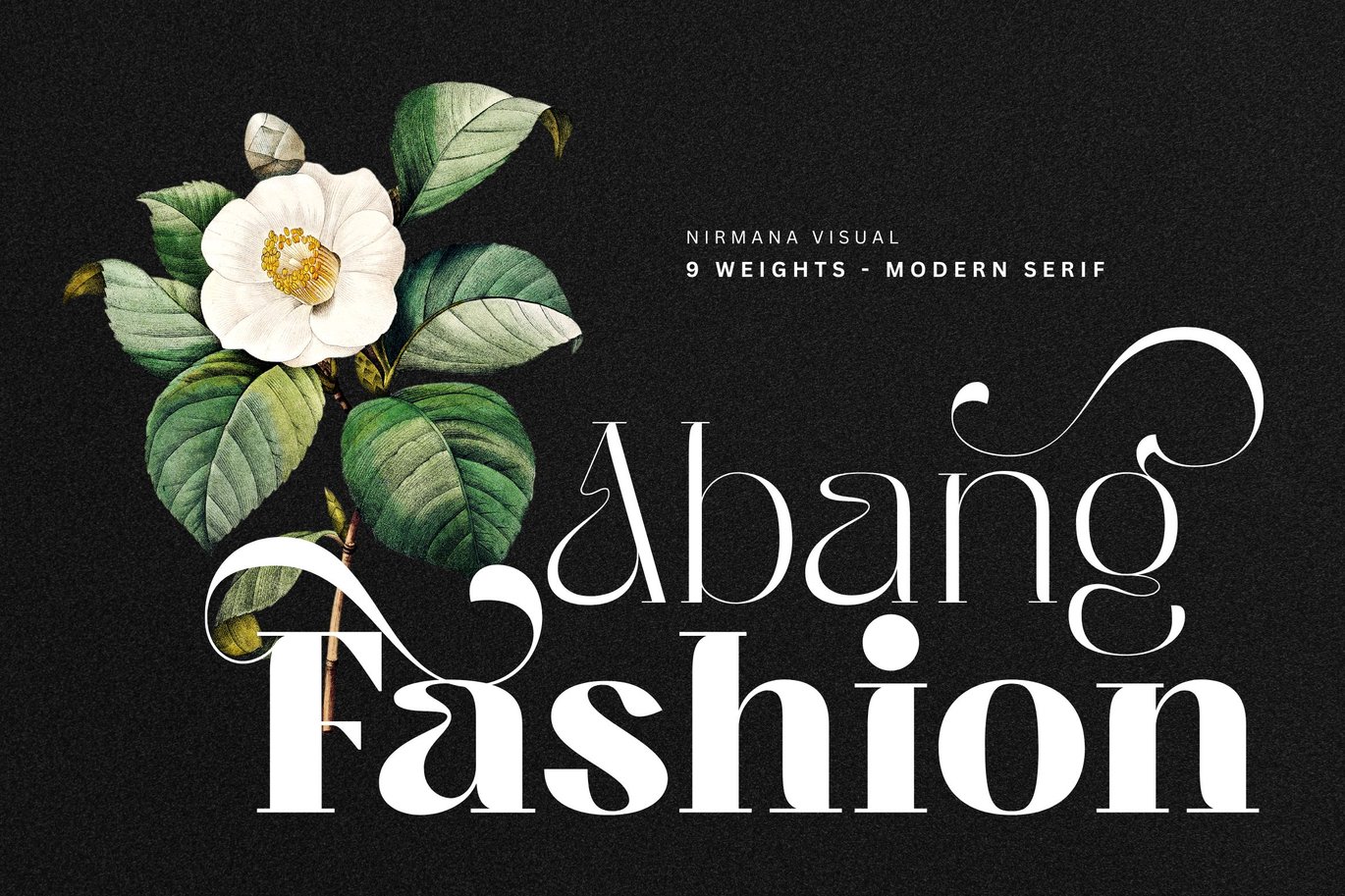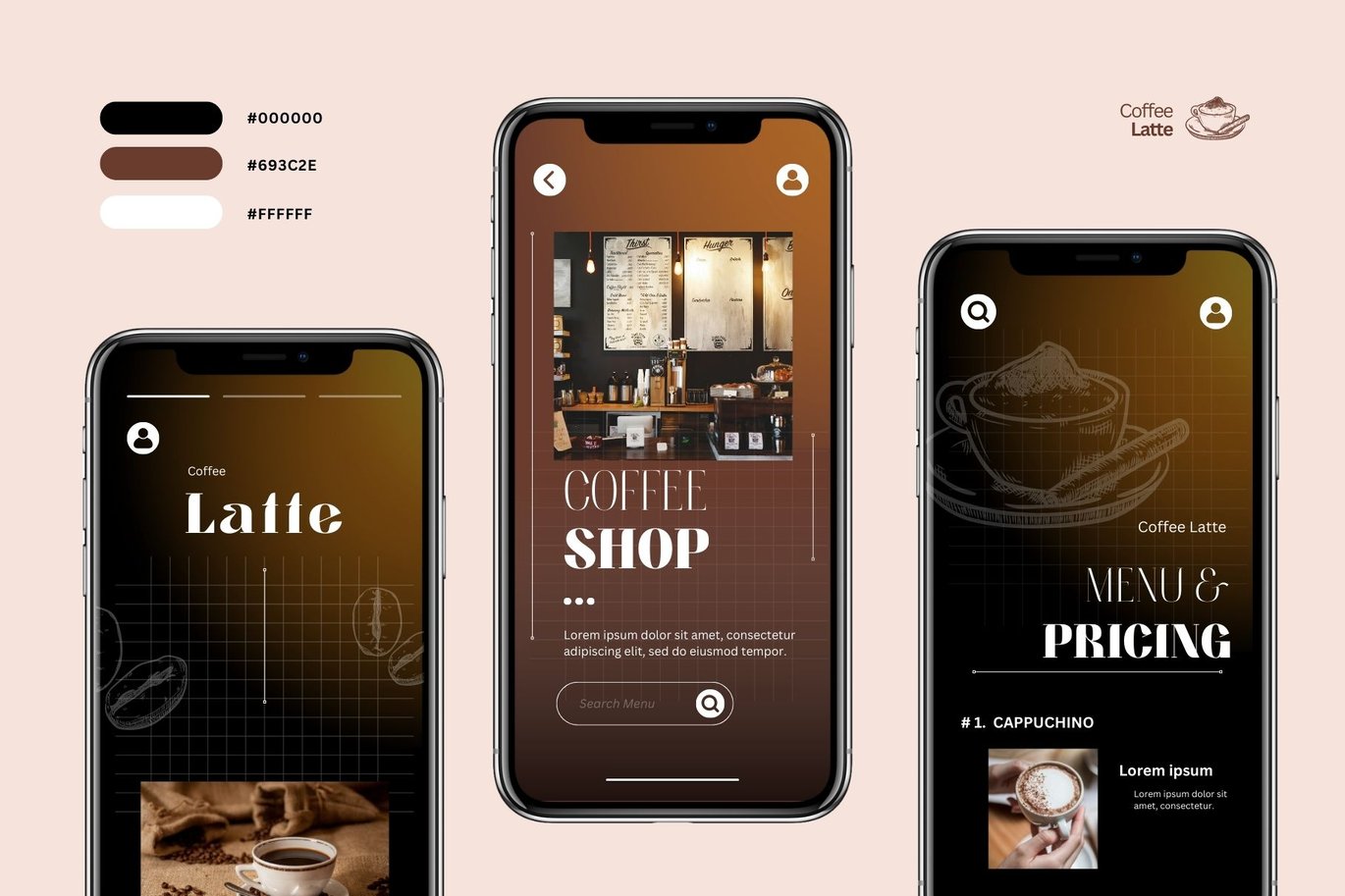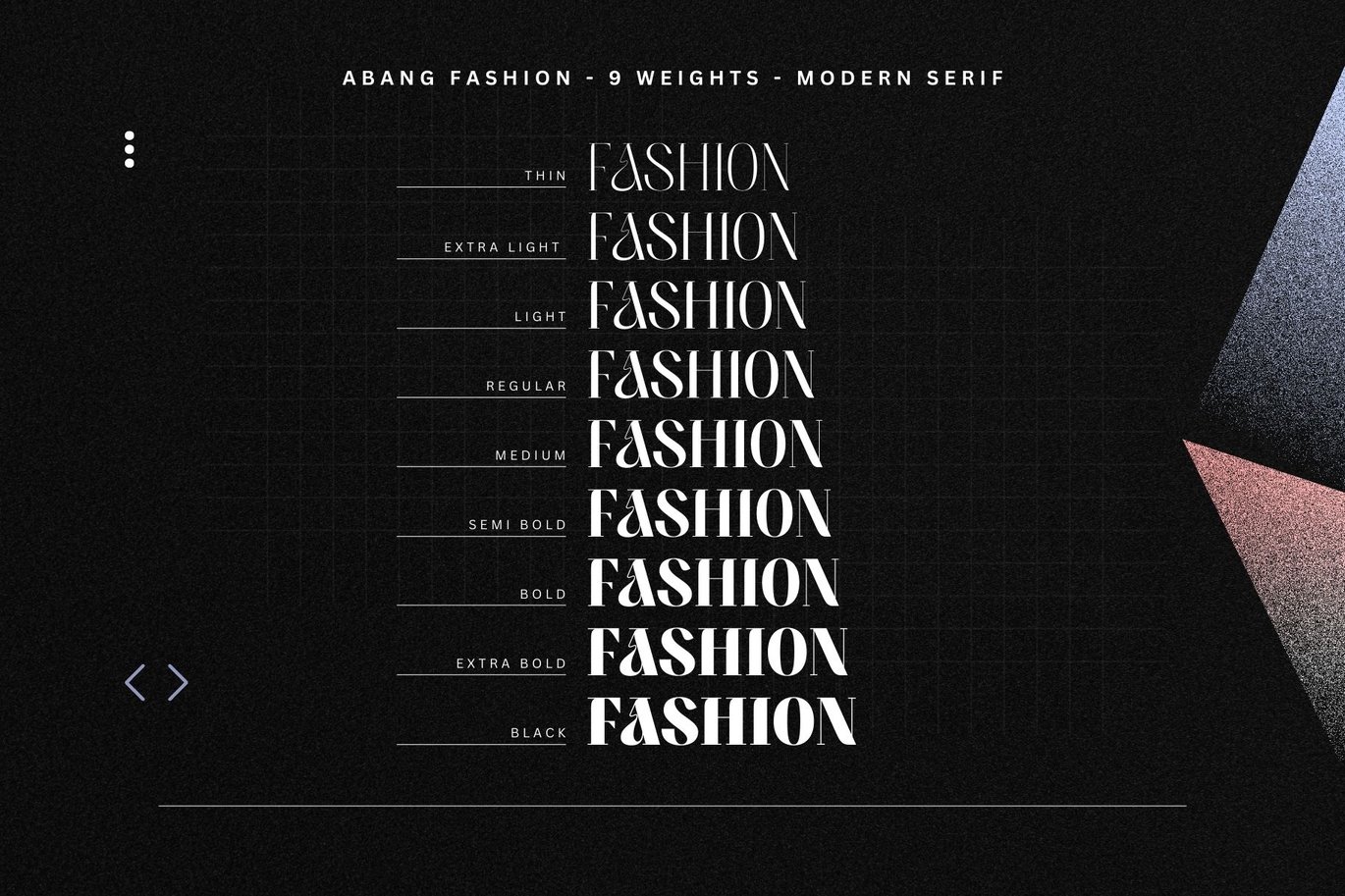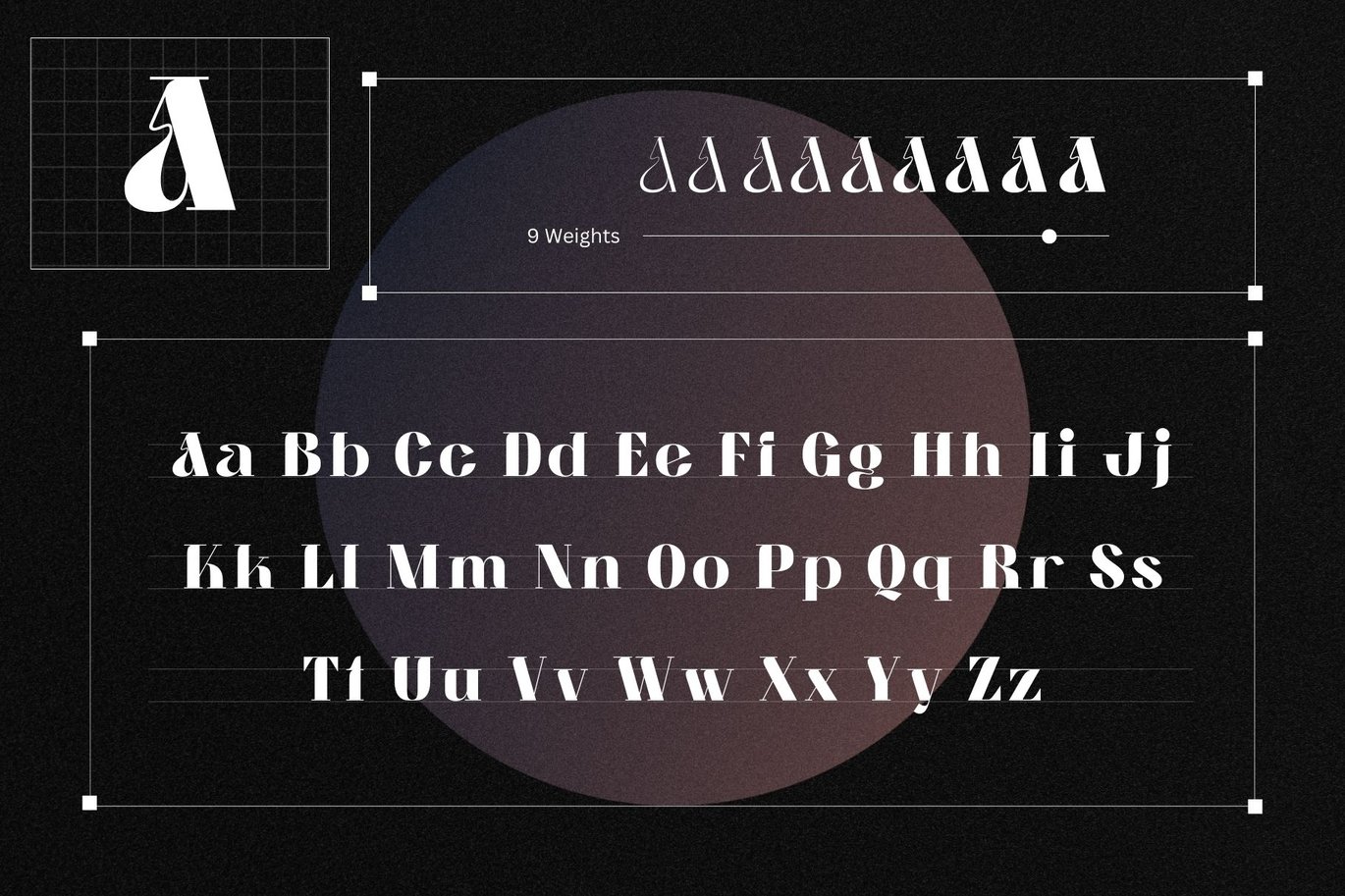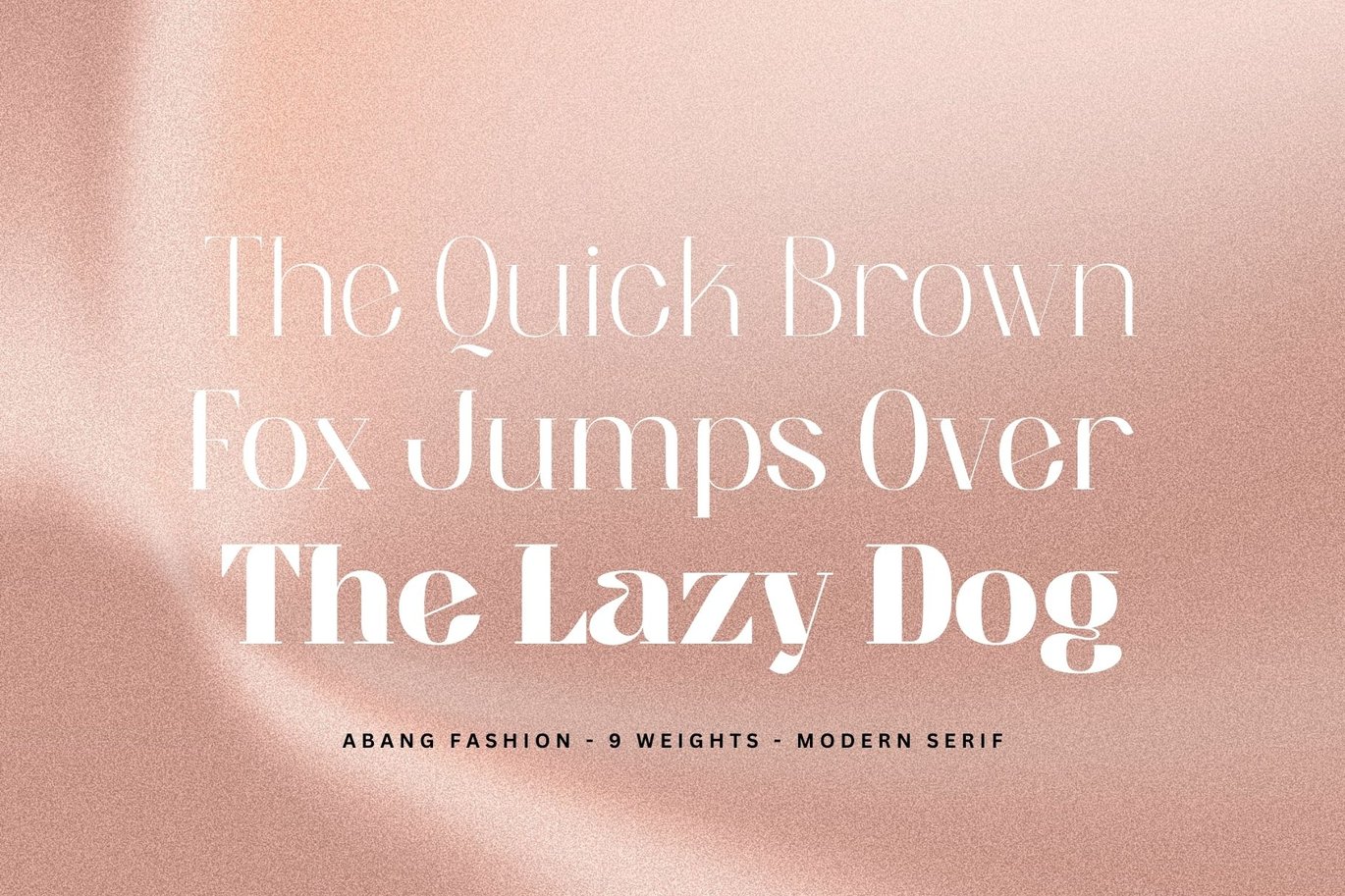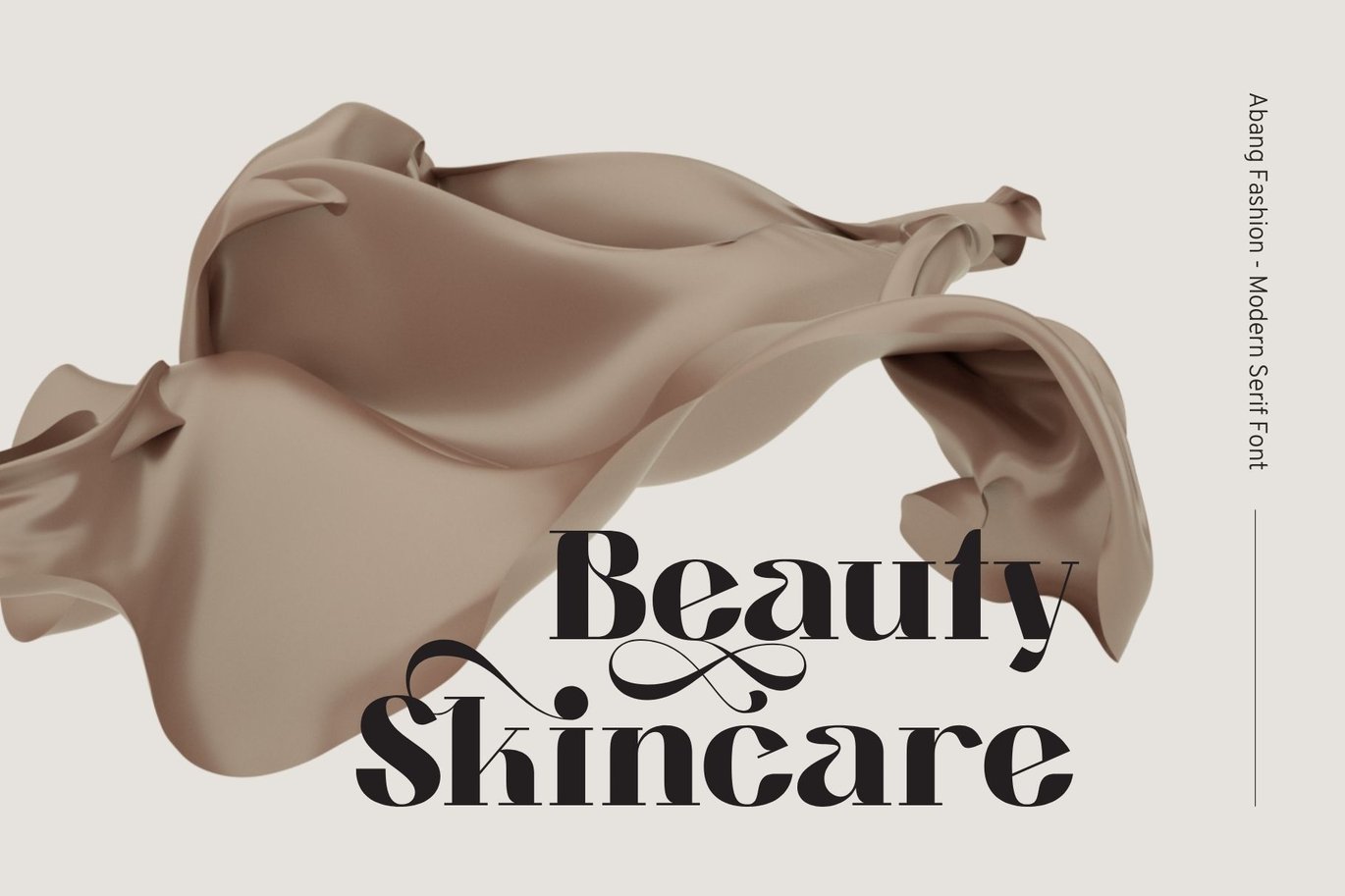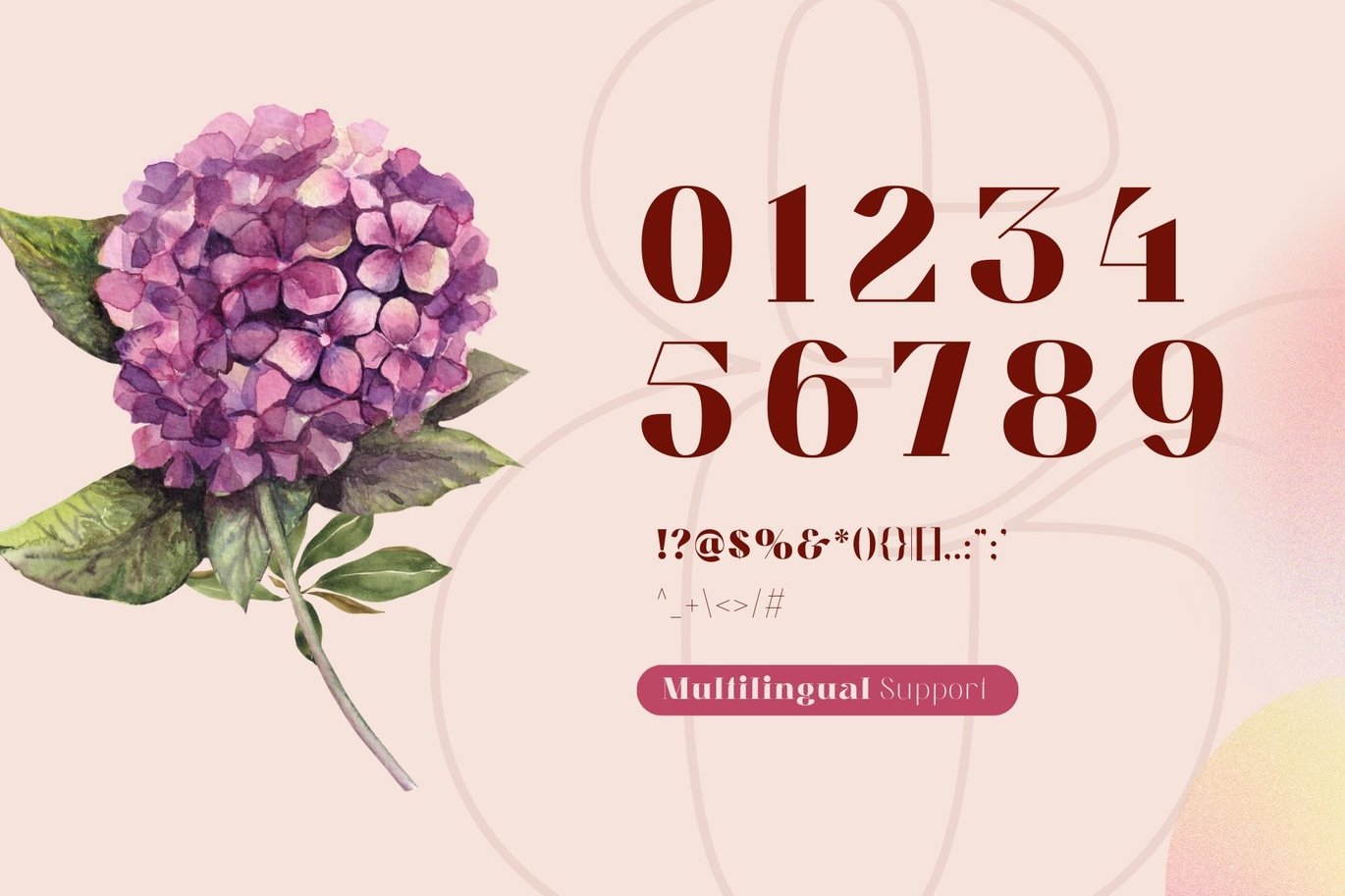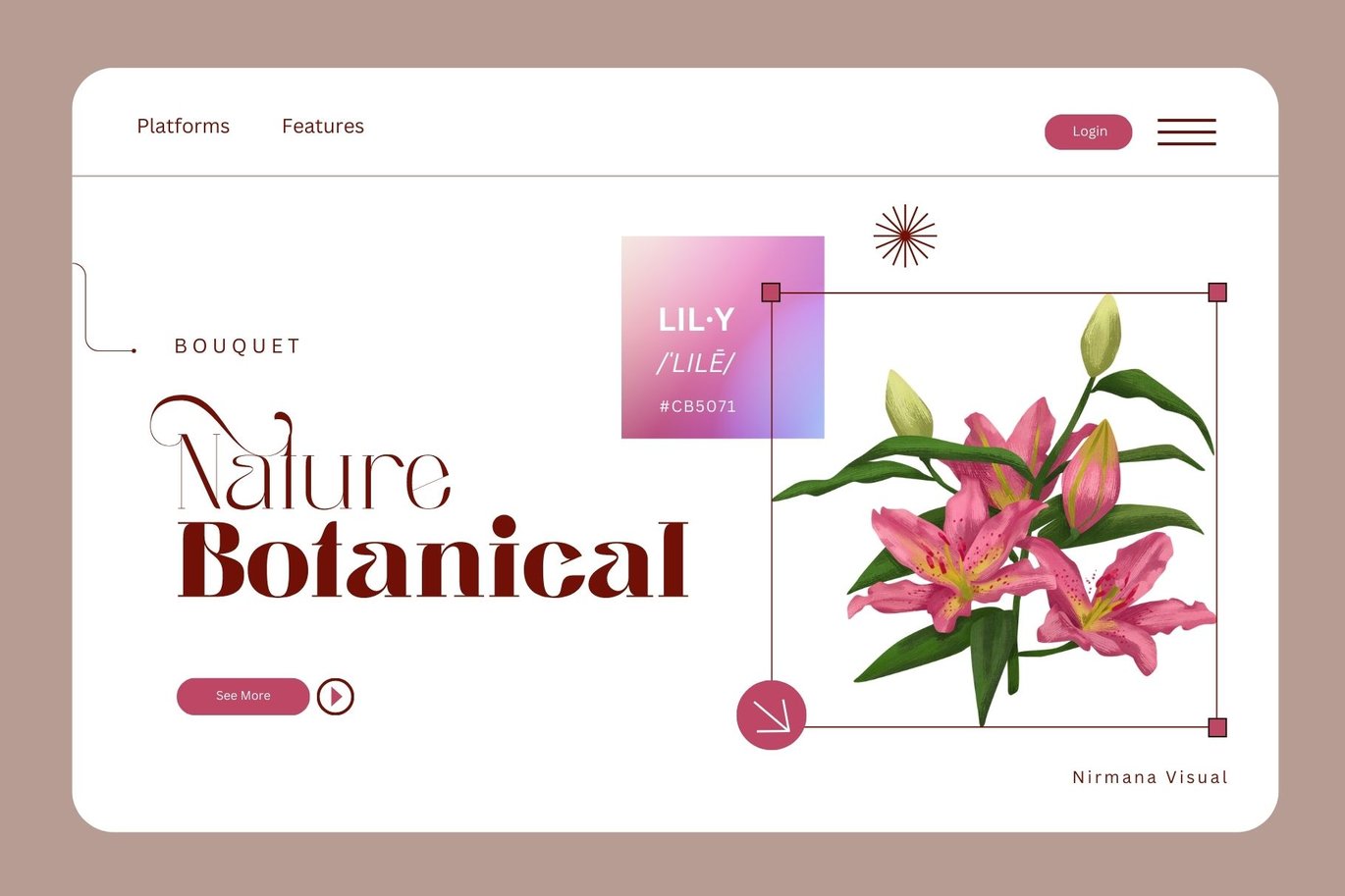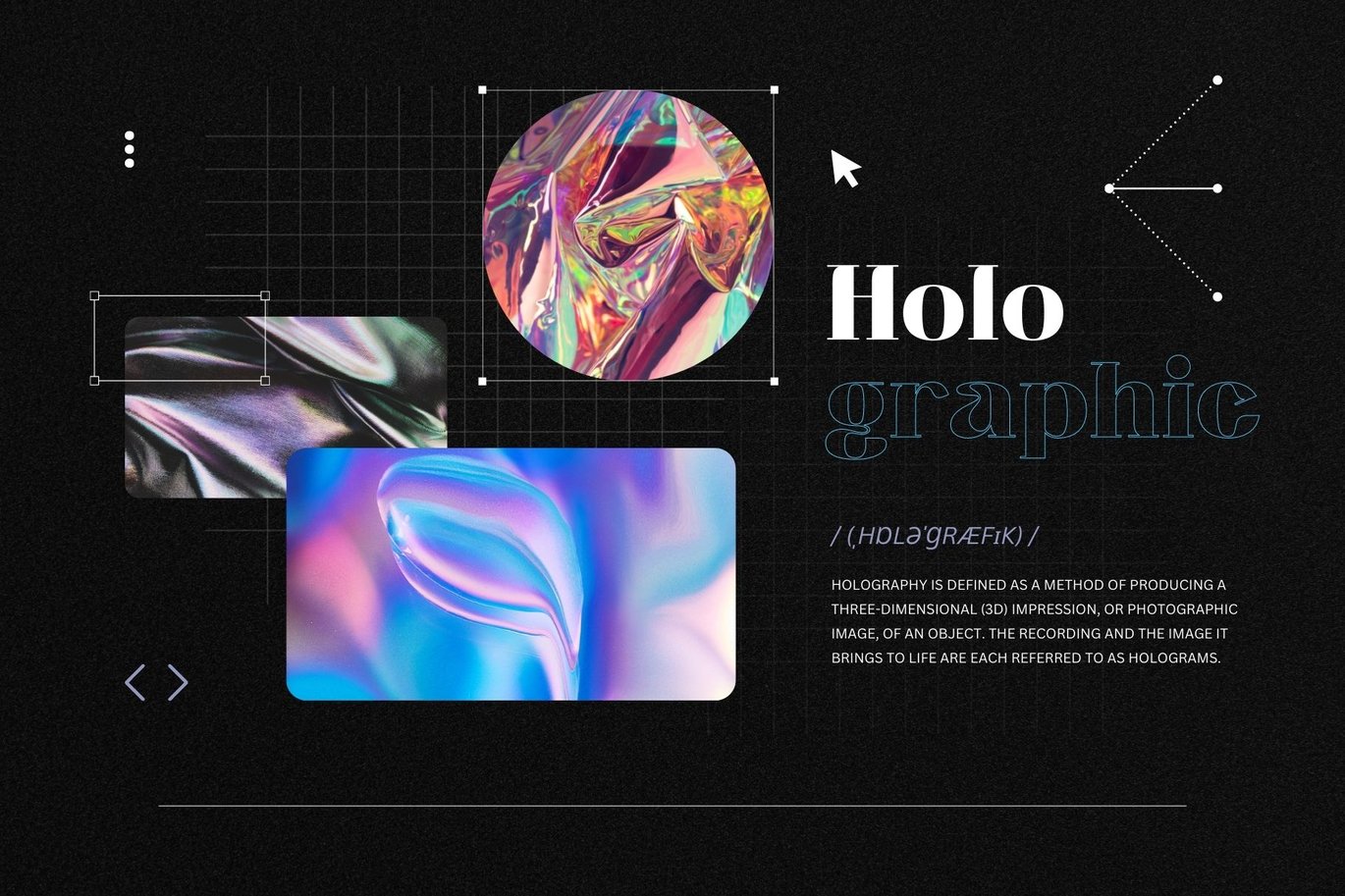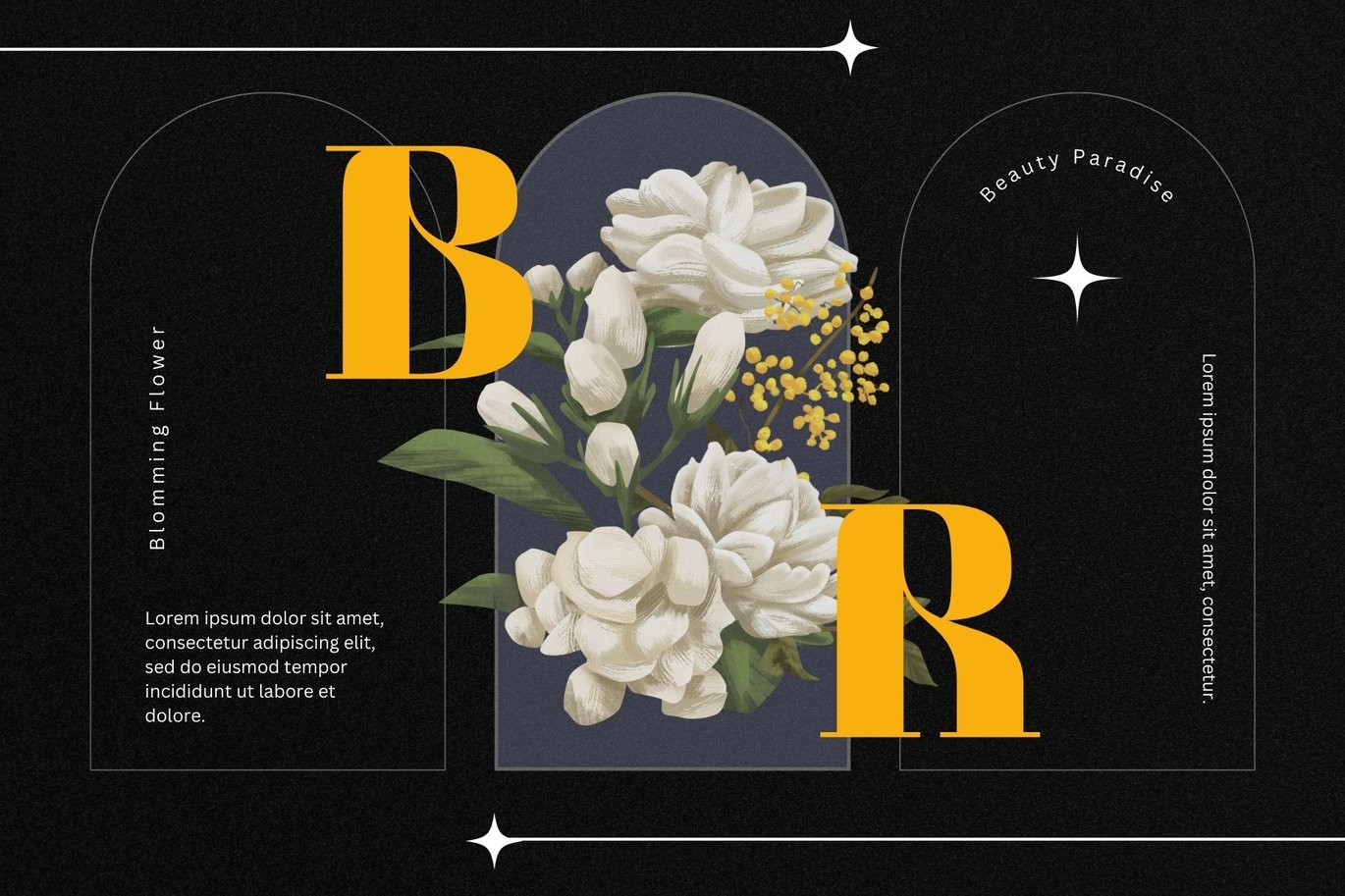
Abang Fashion – Branding Font
Abang Fashion is a luxury typeface with 9 Weights,
full set of lowercase and uppercase letters, numerals and punctuation, multilingual symbols.
Very suitable for the title, logo, typography, clothes, magazines, brochures, packaging and much more for your design needs, making your designs more modern and professional.